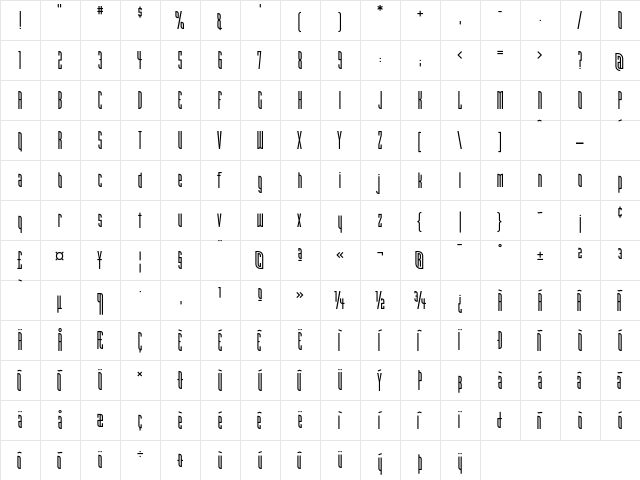
NarrowbandPrimeICG Regular Font Preview
NarrowbandPrimeICG Regular
NarrowbandPrimeICG Regular Font Details
Design Context for NarrowbandPrimeICG Typeface
NarrowbandPrimeICG is a composed and adaptable typeface that performs quietly and consistently across a wide range of design contexts. Its narrow stance lets it pack a punch even in space-constrained designs.